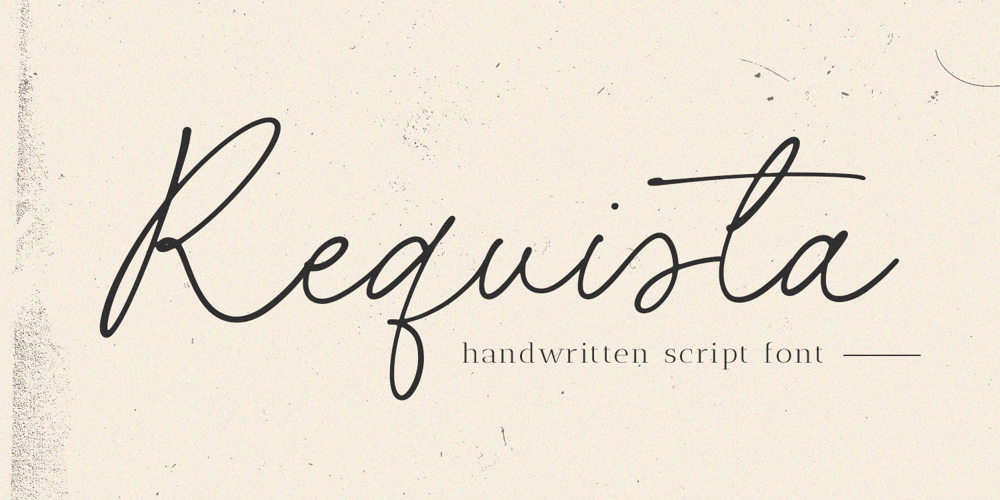
Requista Font Family was designed by Wara Sigit Tri Pamungkas and published by Timurtype. Requista contains 1 styles and family package options. Introducing by Timur typeProudly Present, Requista A Handwritten Script FontRequista is perfect for product packaging, branding project, megazine, social media, wedding, or just used to express words above the background.This Claritty font includes:-Full Set of standard alphabet and punctuation & symbol-Extra set Ligature-multilingual support.Embelish your designs with our original fonts.Enjoy the font,Thank you!